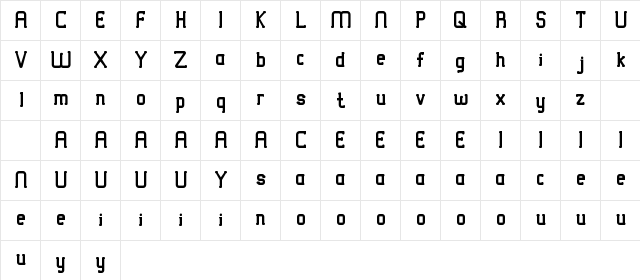
VICTORISA DEMO Bold
| Foundry | Edric Studio |
| Designer | Deyan |
Design Context for VICTORISA DEMO Typeface
VICTORISA DEMO is a composed and adaptable typeface that performs quietly and consistently across a wide range of design contexts. The heavy weight commands attention and anchors typographic hierarchies.